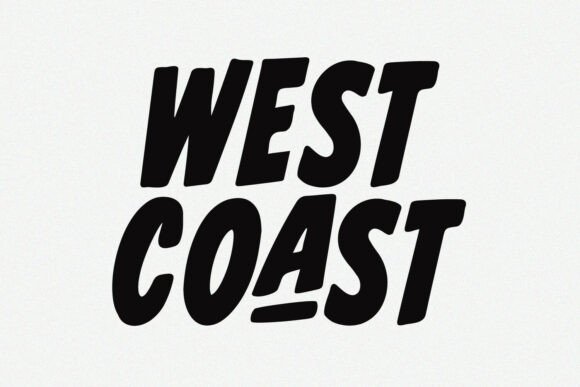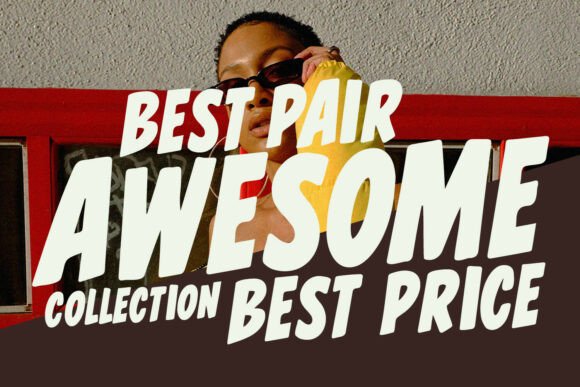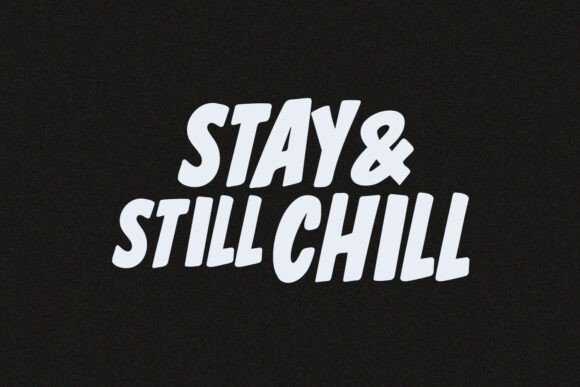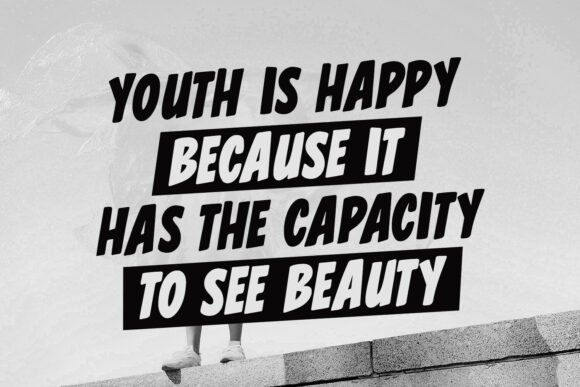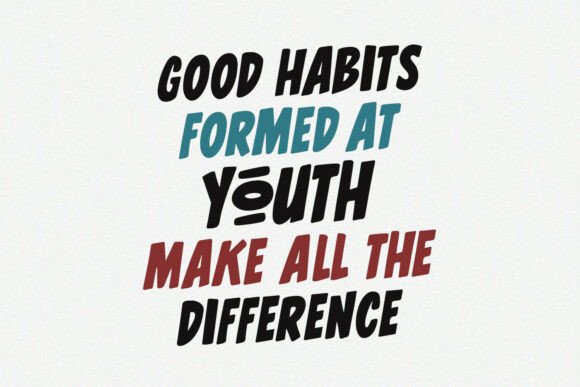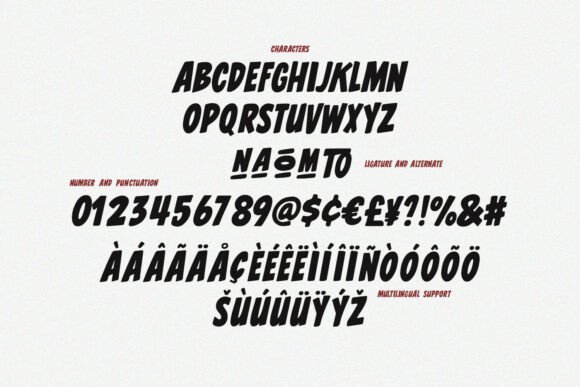
Introduction to Emato Canbia Font
Elevate your creative projects with Emato Canbia, a bold and expressive hand-drawn display font designed to bring character and energy to every layout.
Created by Maulana Creative, this font features thick, organic strokes and a slightly slanted, quirky rhythm that instantly grabs attention Emato Canbia is perfect for designers looking for a โhuman touchโ that balances modern aesthetics with a casual, funky vibe.
Key Features of Emato Canbia Font